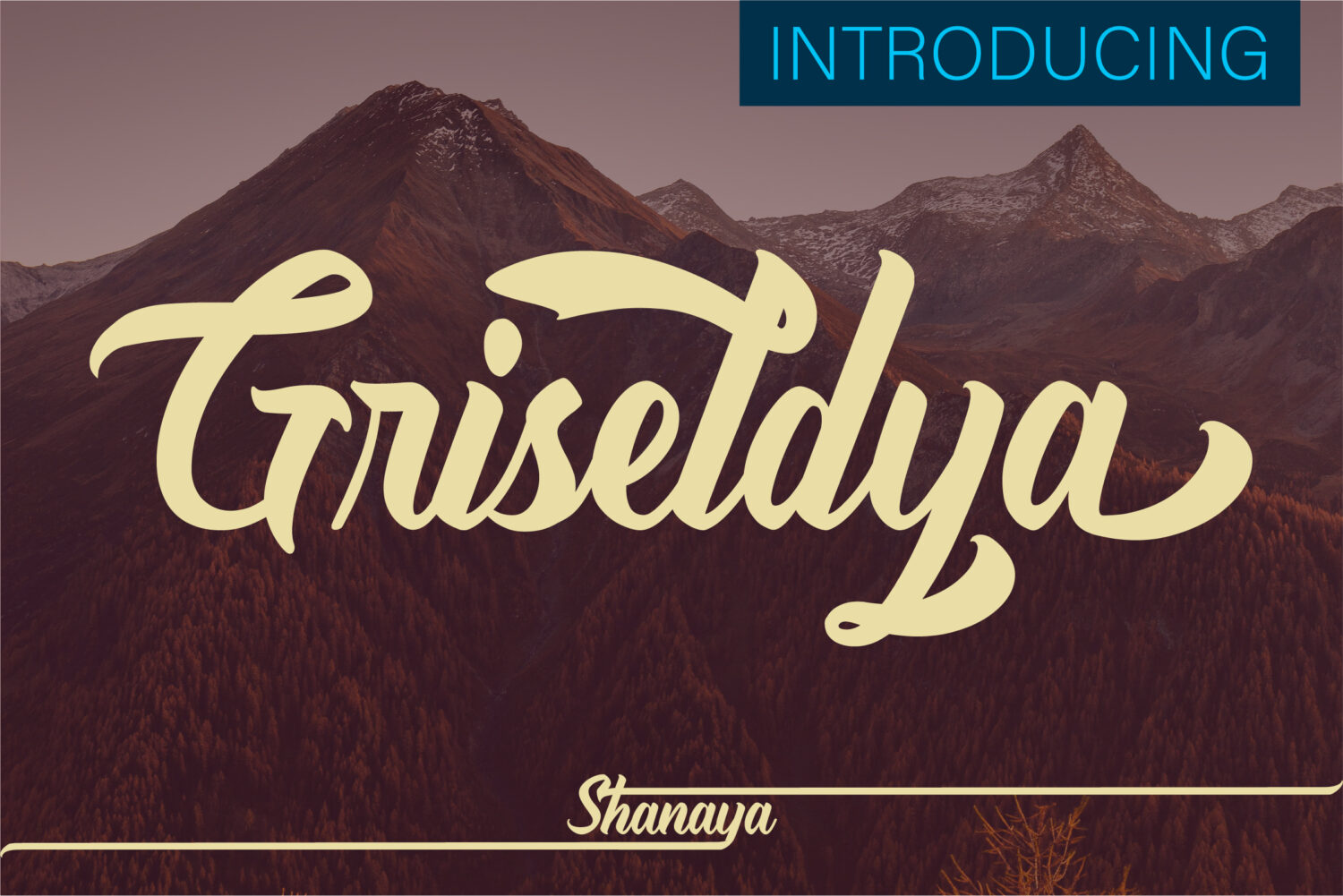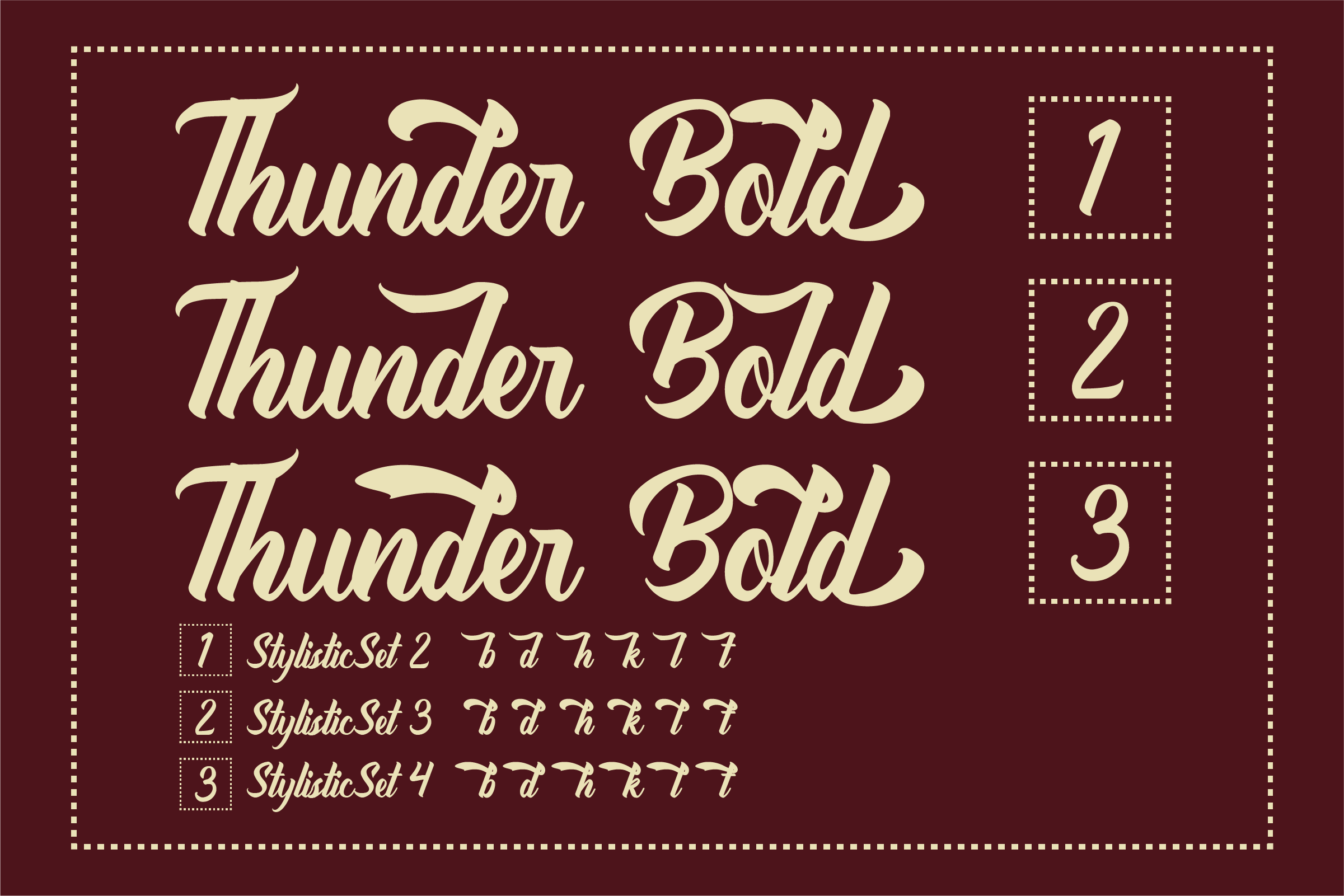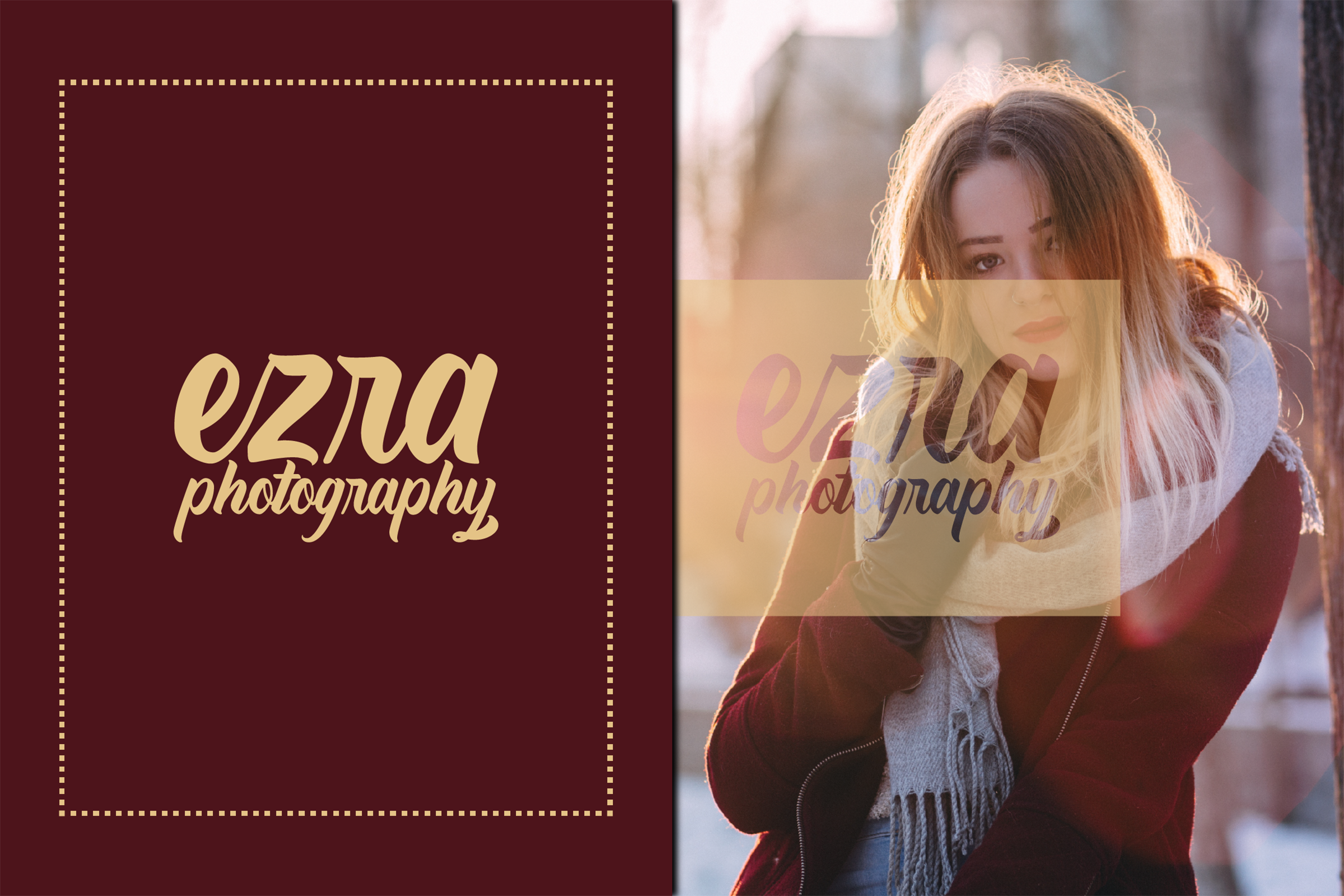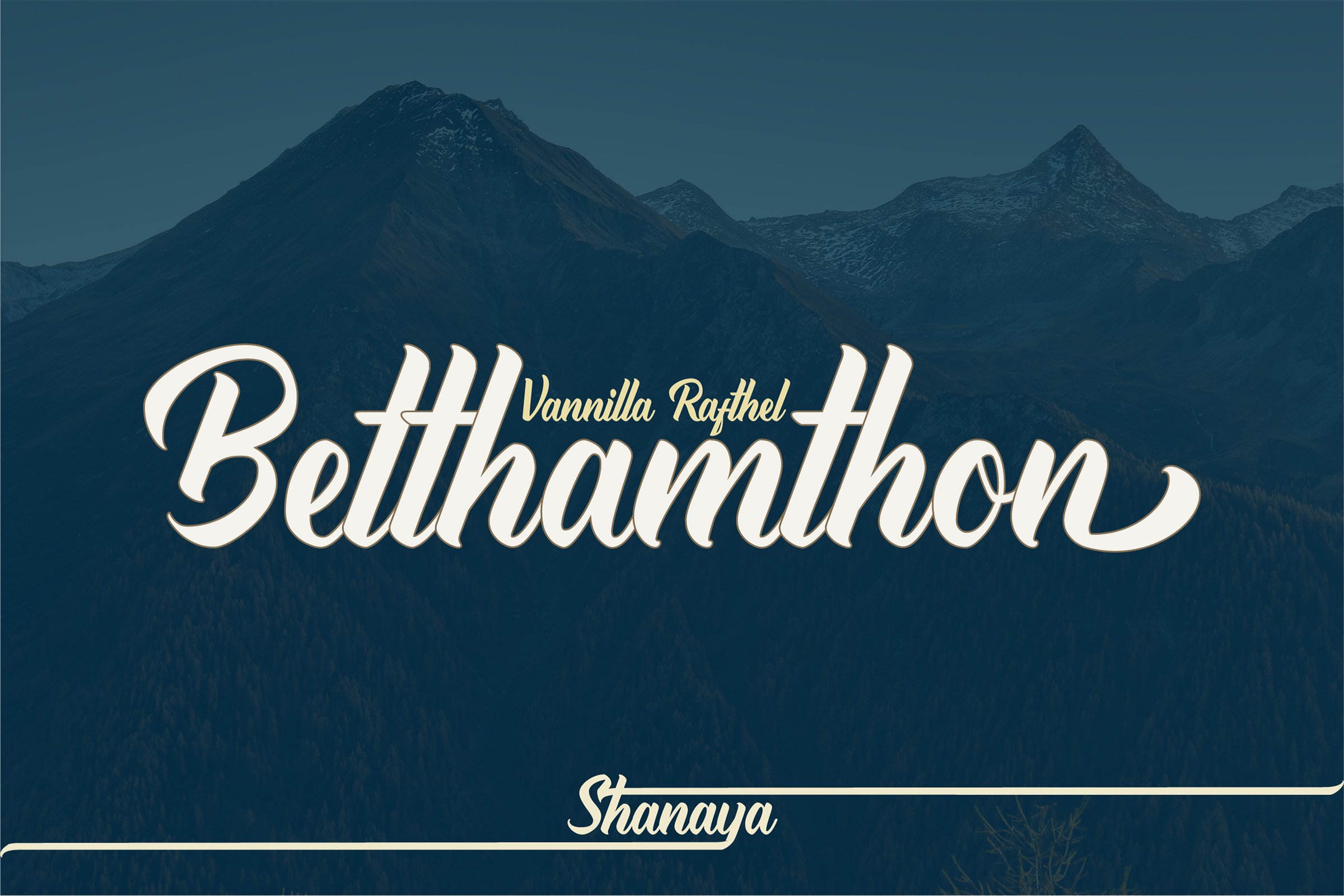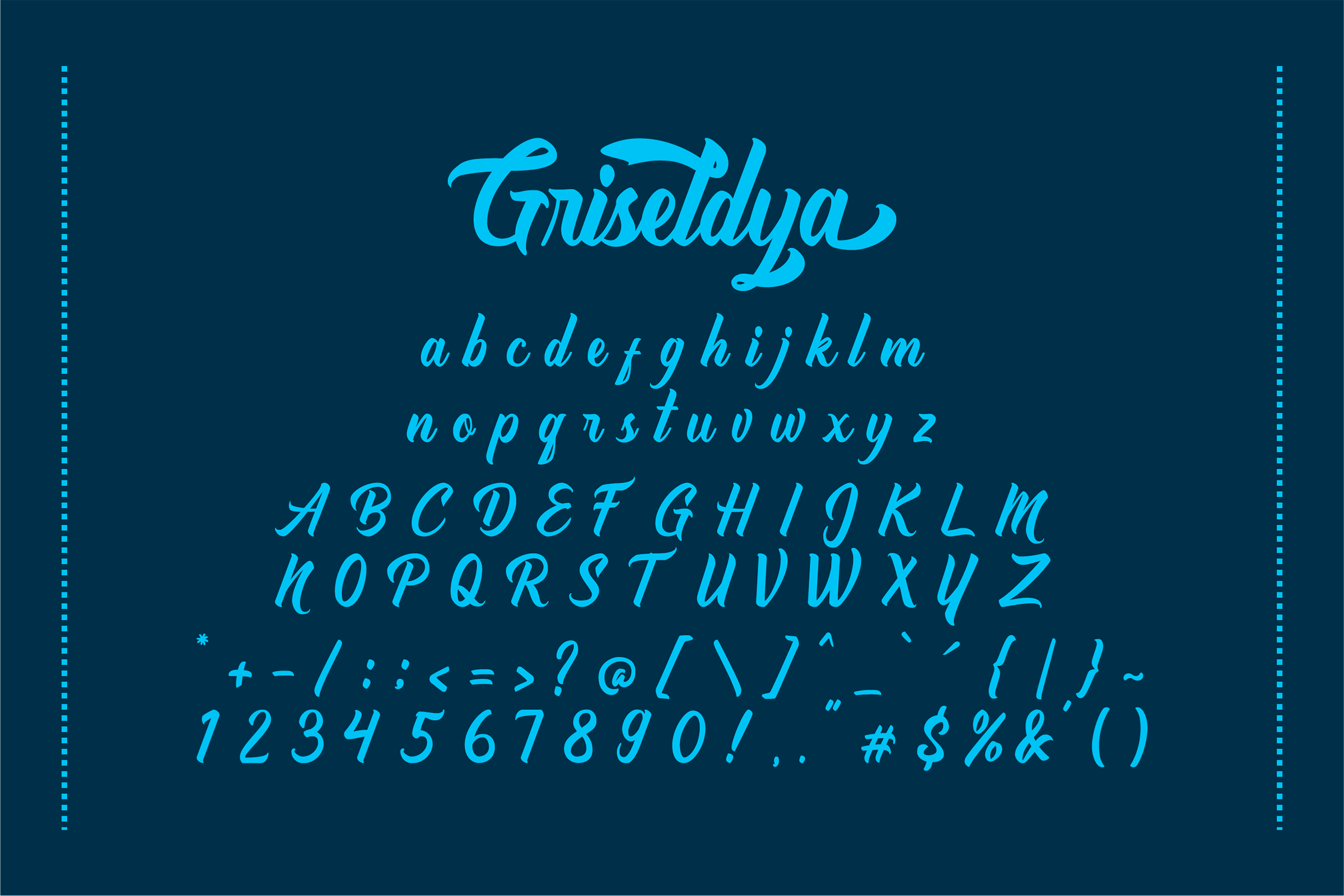
Griseldya Free Font
Griseldya Free Font was created to help you design your own brand or your client, and you can also use it to design all graphic things like badges, signs, packaging, headlines, T-shirts/clothing, posters, etc. This free typeface was designed by a talented KetikKata Std. If you like it don’t forget to check out the full version.